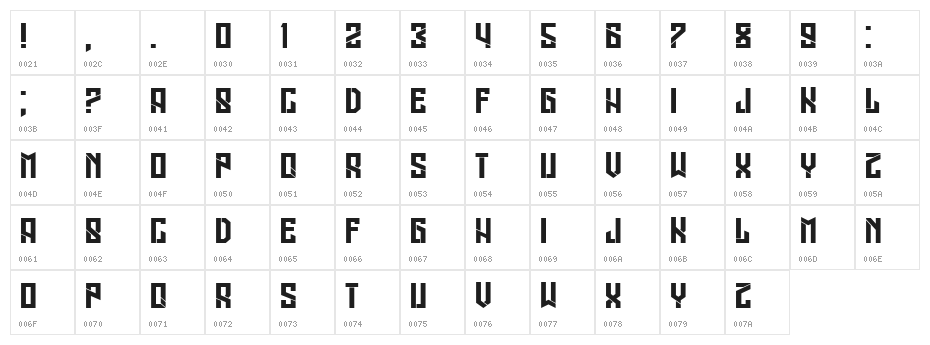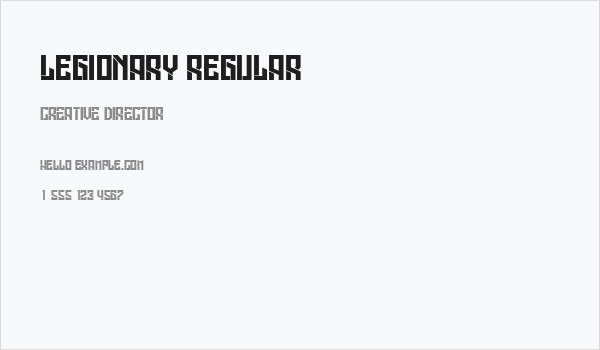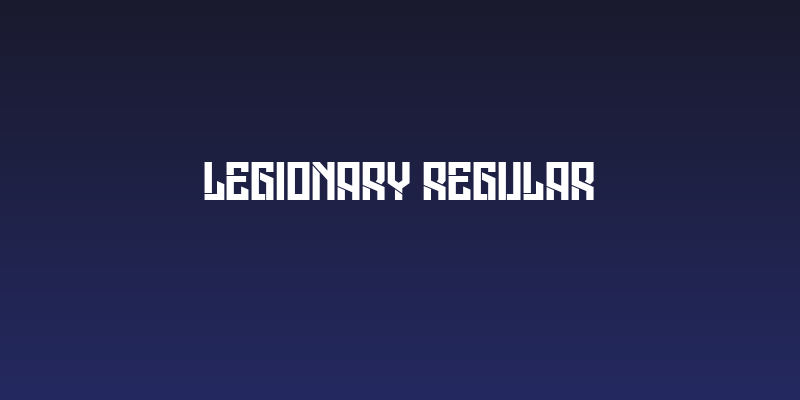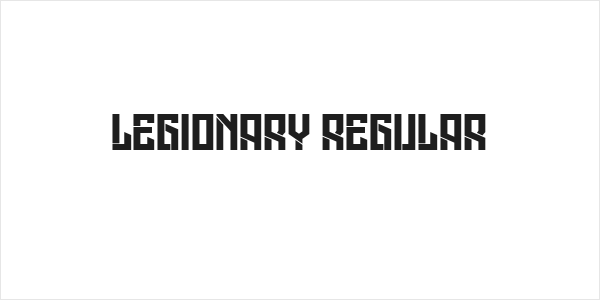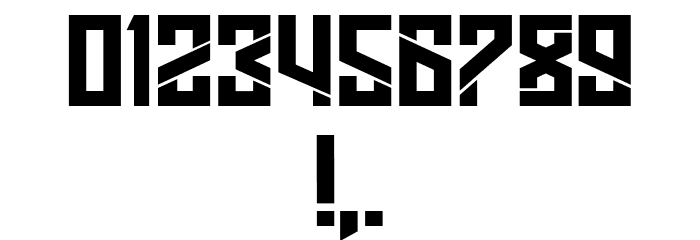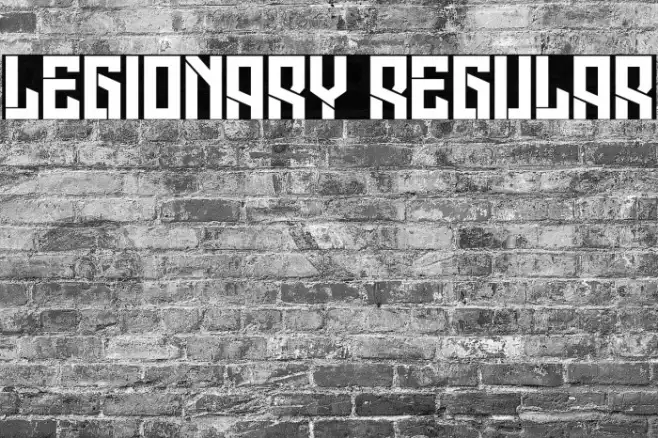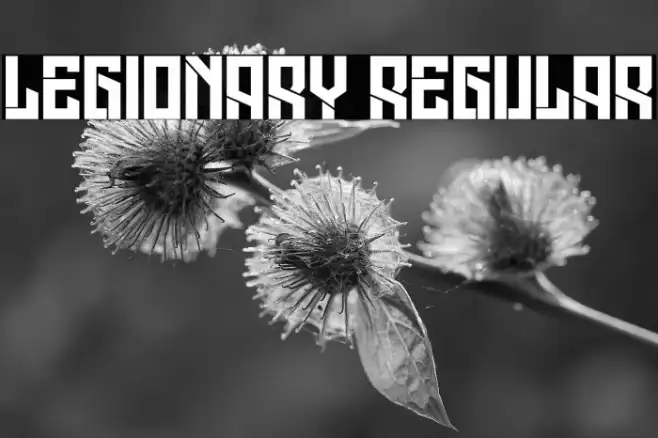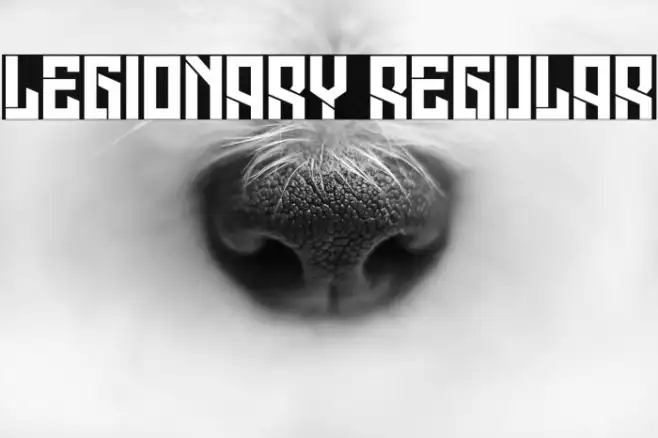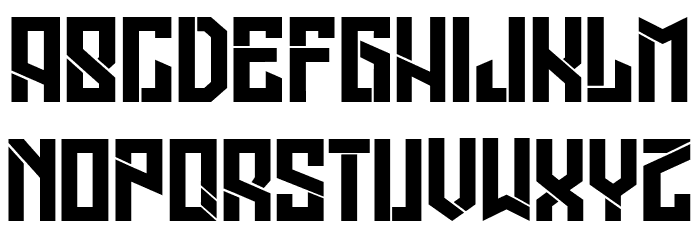
Legionary Regular Font
Legionary Regular Description
This font features a bold and geometric design with sharp angles and a futuristic aesthetic. The characters are constructed with solid, block-like shapes, giving them a strong and commanding presence. The uppercase letters are particularly striking, with a uniform height and width that creates a cohesive and structured look. The numerals and special characters maintain this bold style, ensuring consistency across all elements. The font's design is reminiscent of digital or sci-fi themes, making it ideal for projects that require a modern and edgy appearance.
| Proposed Projects | Ideal for sci-fi themed designs, video game titles, tech branding, and futuristic posters. |